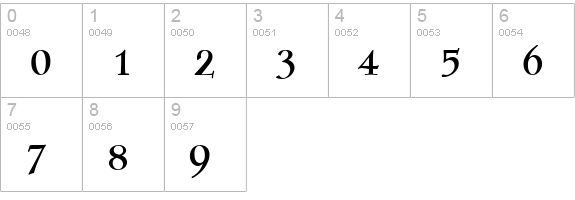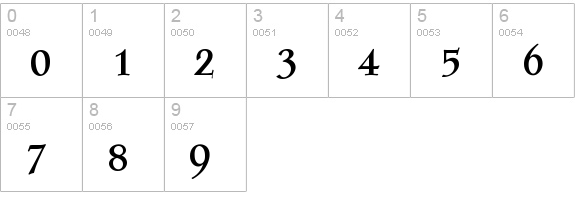
Post Mediaeval Medium Font Details
Post Mediaeval Medium is a balanced, medium-weight variant in the Post typeface family \xE2\x80\x94 well suited to sub-headlines, navigation, and balanced editorial work.
Introducing Post Mediaeval Medium font, a timeless and sophisticated typeface that perfectly blends historical charm with modern elegance. This versatile font is ideal for a wide range of design projects, from branding to editorial work, offering a classic yet contemporary aesthetic. Post Mediaeval Medium font features a balanced design with clean lines and subtle curves, making it easy to read and pleasant to the eye. Its medium weight strikes the perfect balance between boldness and delicacy, making it suitable for both headings and body text. What's even better is that Post Mediaeval Medium font is available for free download at FontsMarket.com. Now you can elevate your designs with this exquisite font without breaking the bank. Don't miss out on the opportunity to add this timeless typeface to your font collection today!